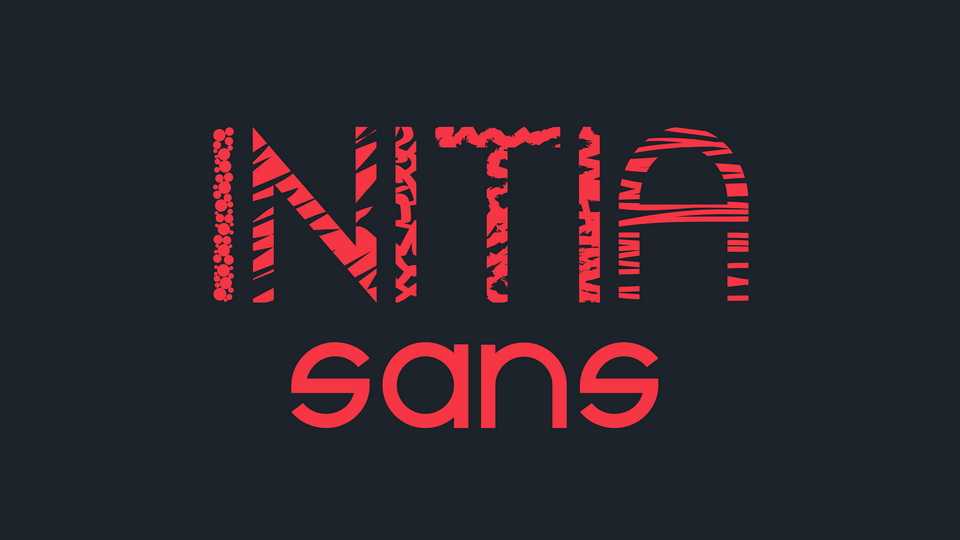
Download Initia Sans font, a geometric serif typeface with a modern touch. With its strong and sharp shapes it’s best used as logo, headline, and title.
Designer: Fakhruddin Kagzi